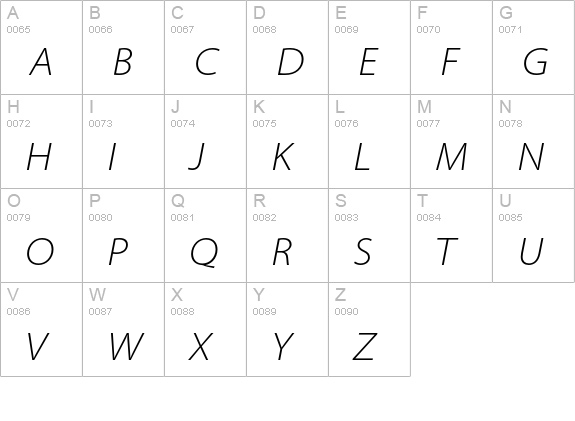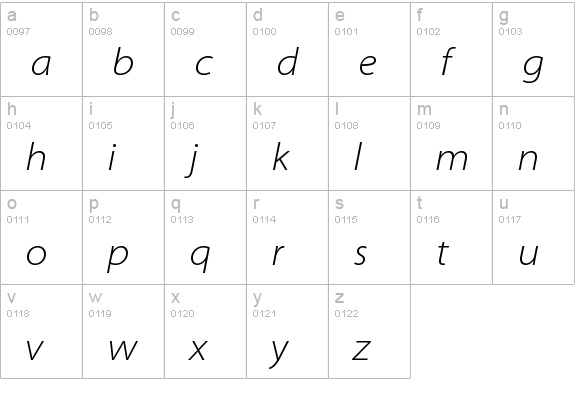
Myriad Pro Light SemiExtended Italic Font Details
Myriad Pro Light SemiExtended Italic is a refined, elegant, italic variant in the Myriad typeface family \xE2\x80\x94 well suited to elegant body text, refined sub-headings, and luxury branding.
Myriad Pro Light SemiExtended Italic is a modern and elegant typeface that exudes sophistication and style. Its sleek and slender design adds a touch of refinement to any project, making it perfect for use in both print and digital media. This versatile font is ideal for conveying a sense of professionalism and creativity, making it suitable for a wide range of design applications. Whether you're working on a branding project, editorial design, or web development, Myriad Pro Light SemiExtended Italic is sure to make a bold statement. Best of all, this exquisite font is available for free download at FontsMarket.com, allowing you to easily access and incorporate it into your projects without any cost. Don't miss out on the opportunity to enhance your designs with the timeless beauty of Myriad Pro Light SemiExtended Italic.